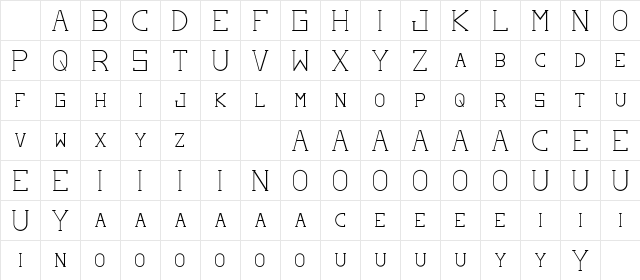
Complete Dreamy Loly Demo Sans Serif glyph index. Displaying only characters natively supported by Dreamy Loly Demo Sans Serif font.
Dreamy Loly Demo carries the refined structure of traditional serif typography, with bracketed terminals and considered proportions that communicate credibility and craft.
Pro Tip: Use Dreamy Loly Demo for editorial body copy and considered headline work. Pair with a neutral sans for UI elements or captions to create a classic hierarchy.